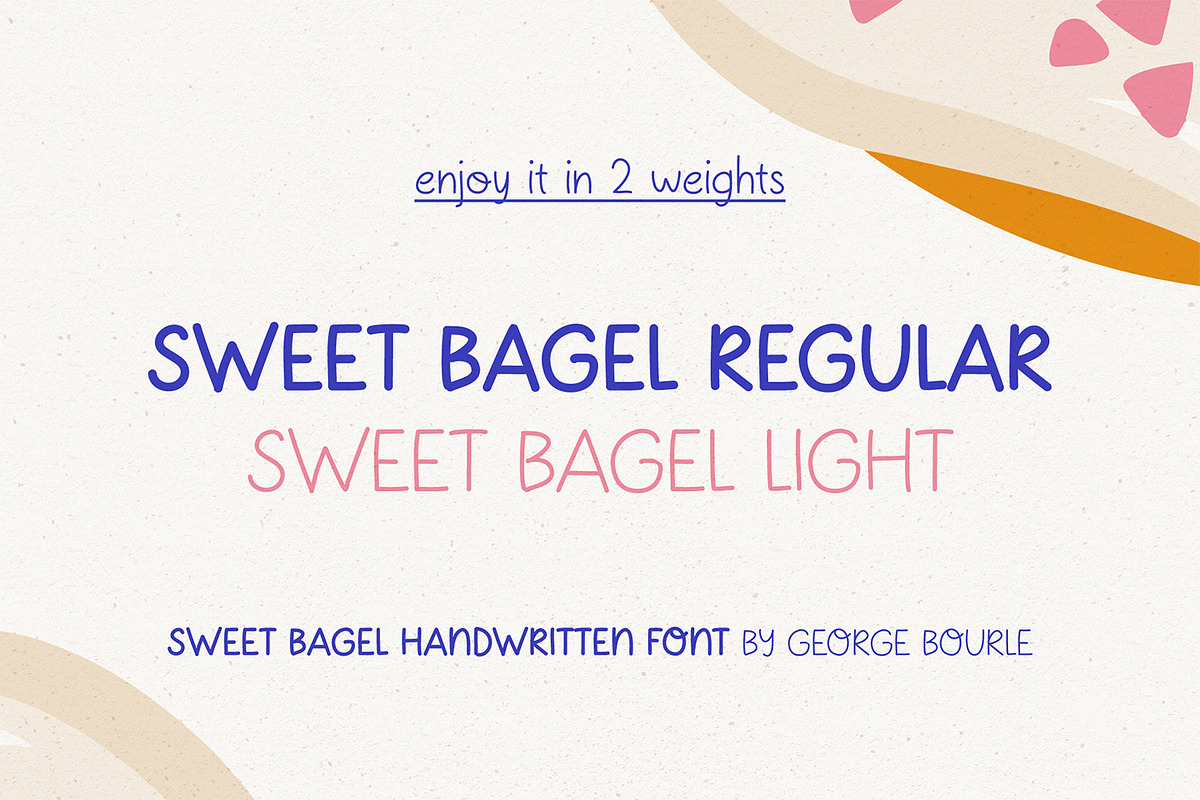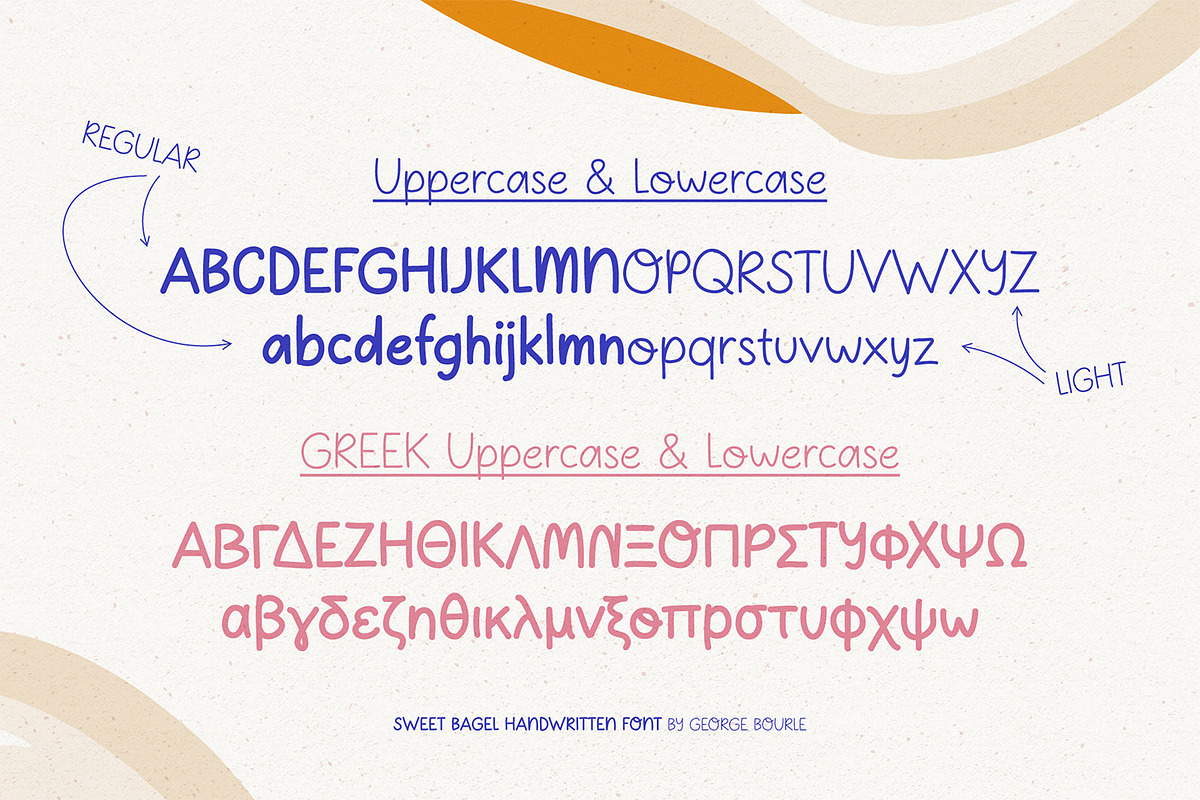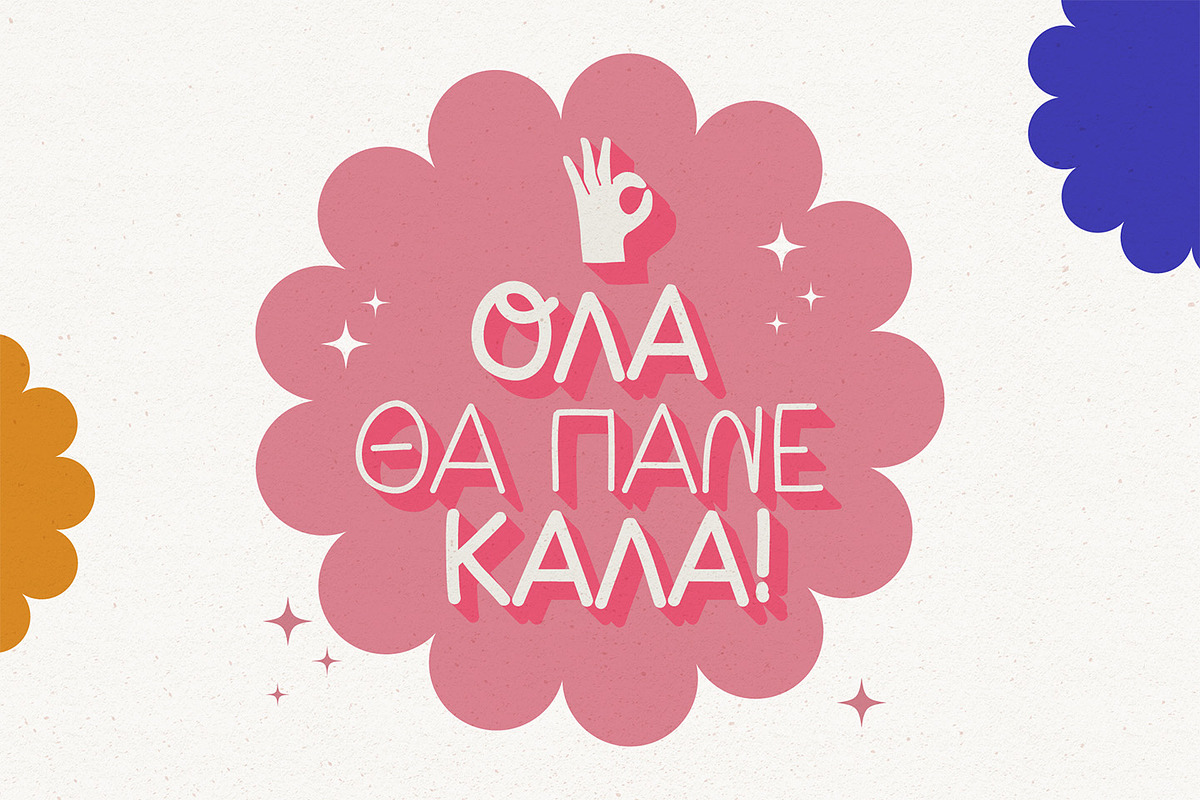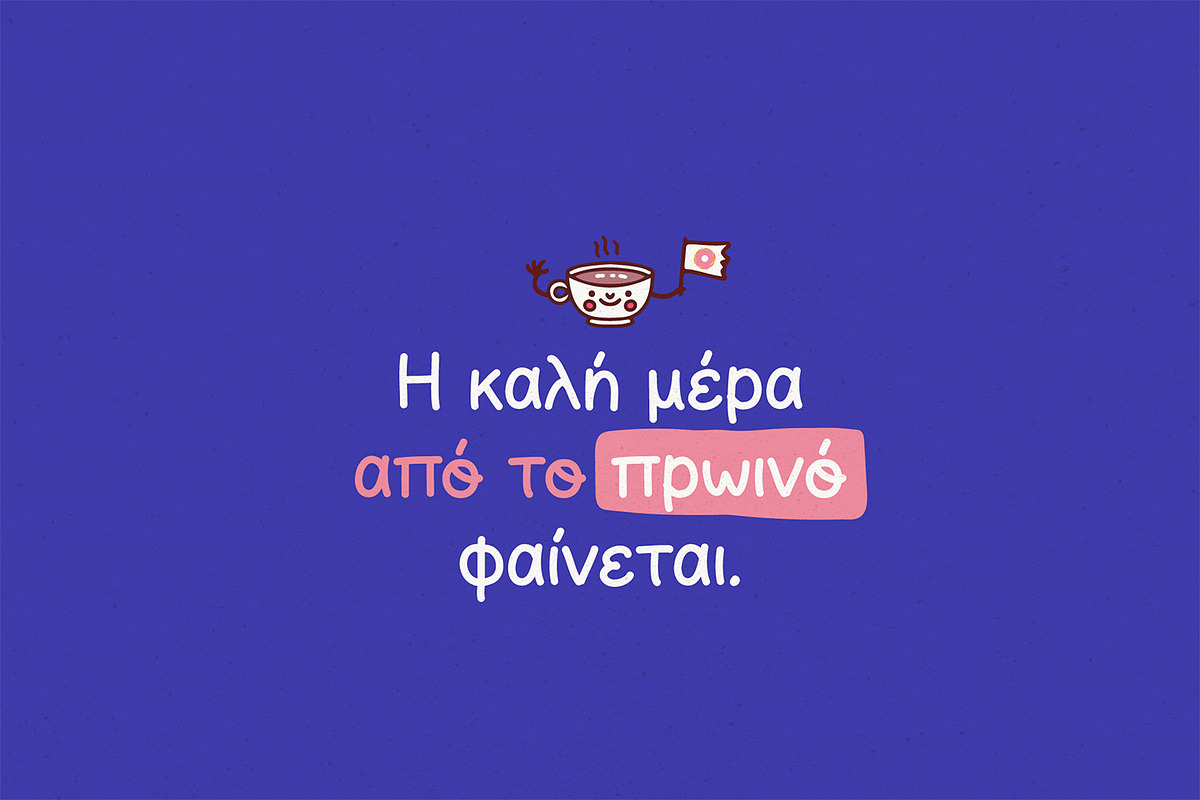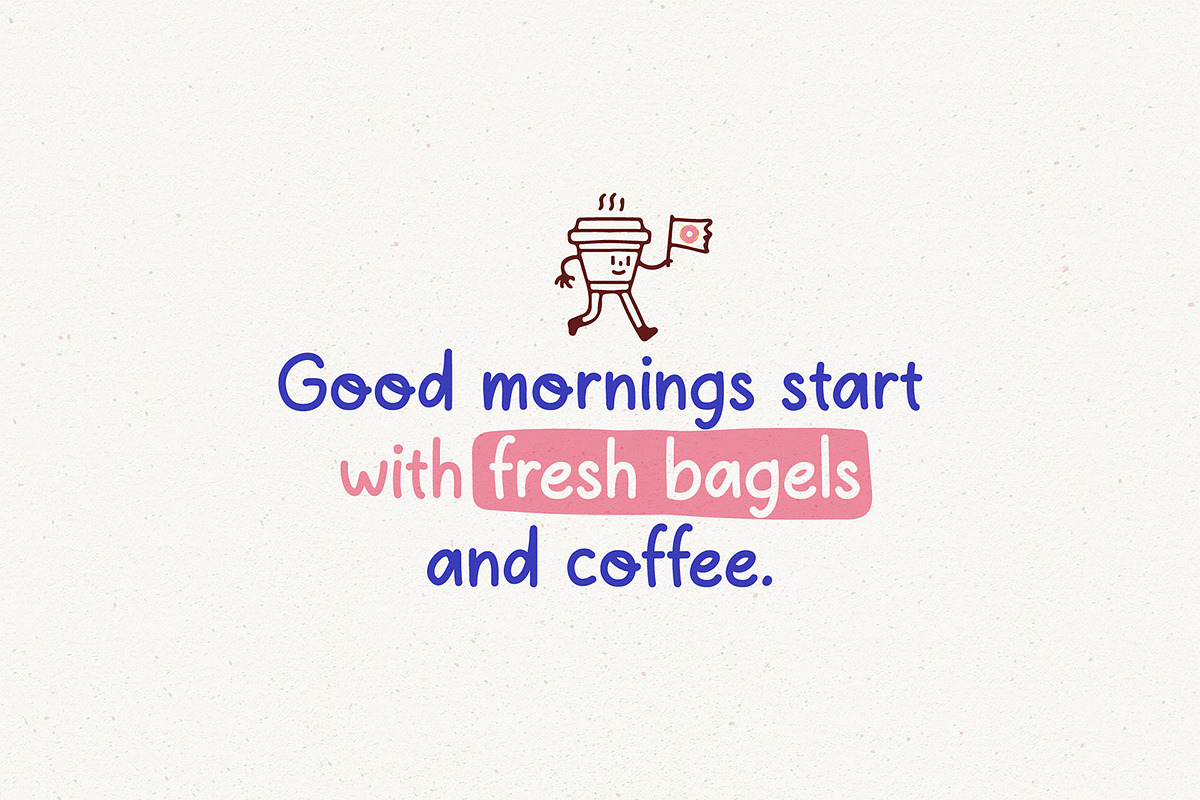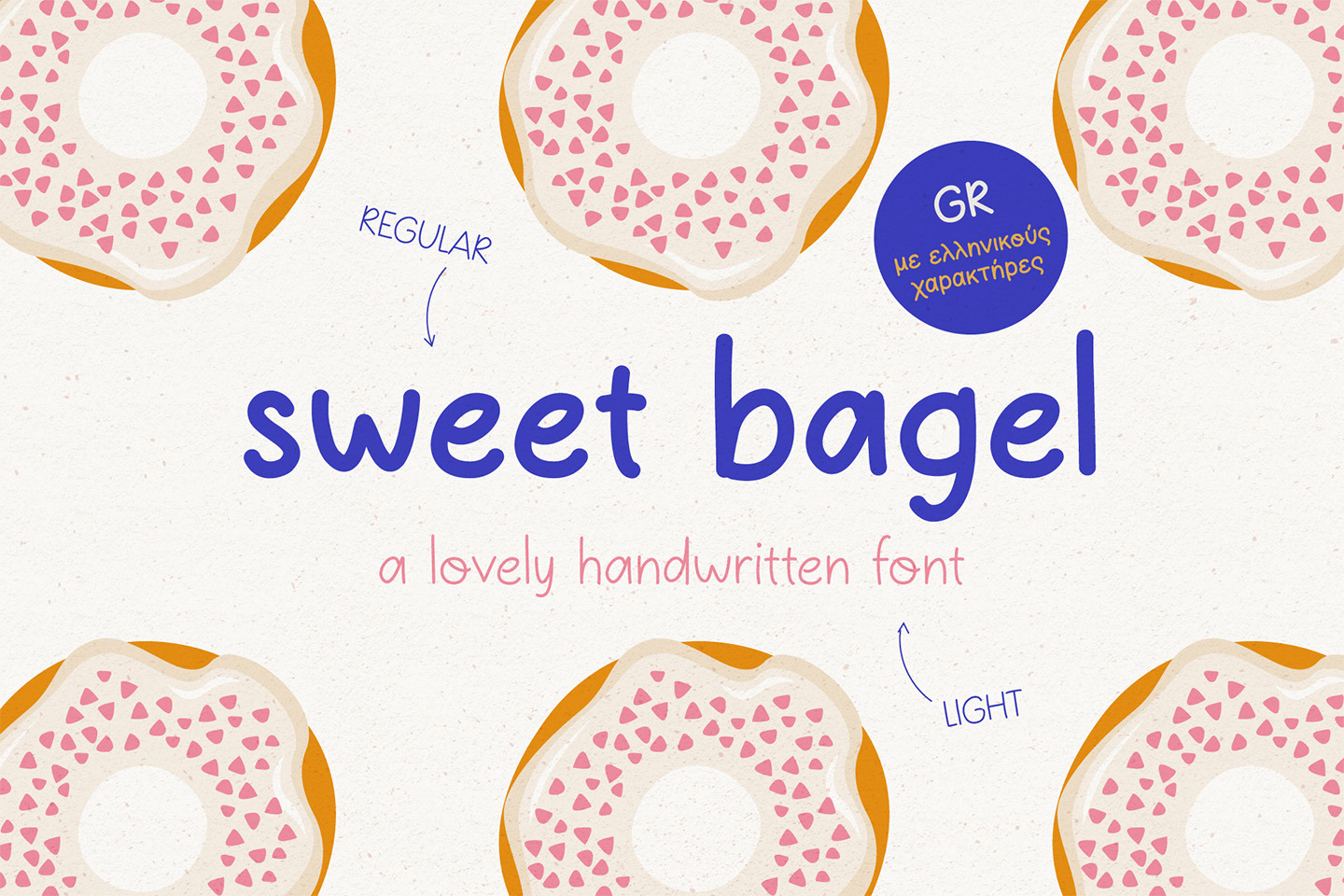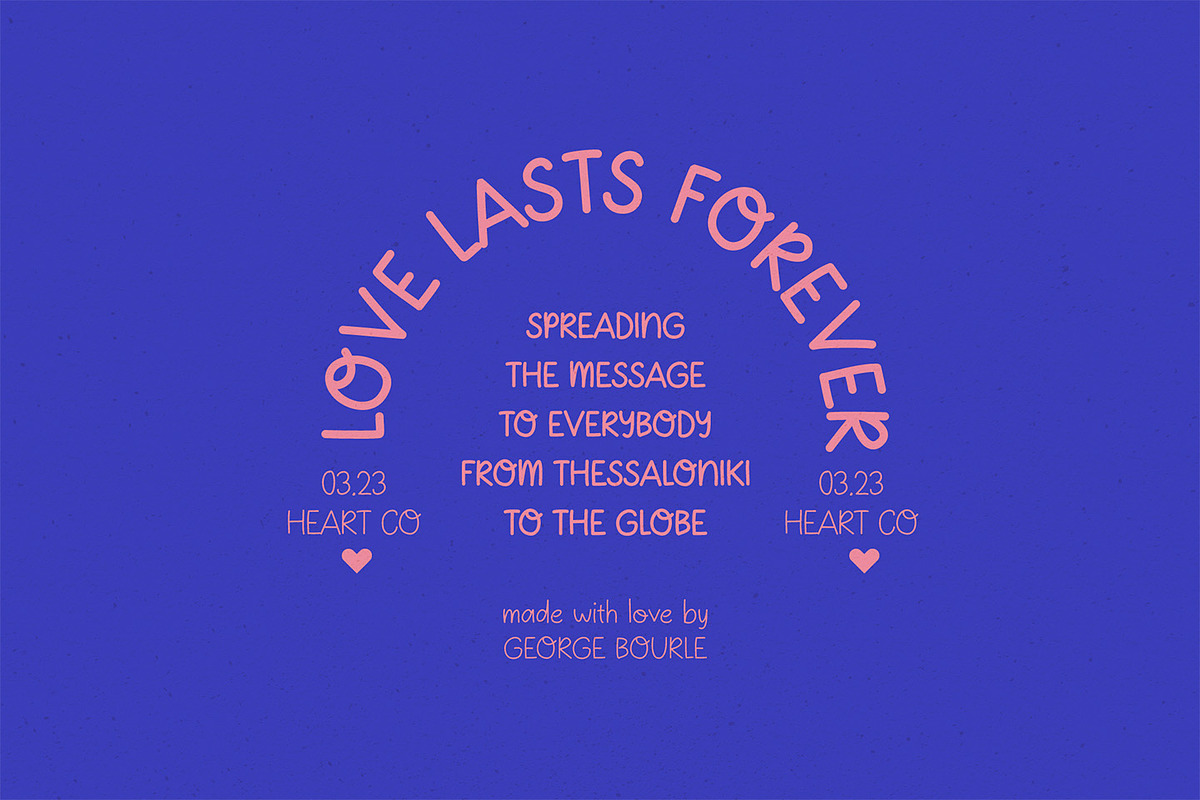
Sweet Bagel font
Sweet Bagel is a charming and whimsical handwritten font that captures the essence of homemade warmth and comfort. Its round and organic shape mimics that of a freshly baked bagel, making it a delightful addition to any project seeking a touch of playfulness.
The font features lovely strokes that flow naturally, giving off a friendly and welcoming vibe. Its multilingual support, including the Greek alphabet, makes it an excellent choice for projects with an international audience.
Whether used in a children's book, food packaging, or greeting cards, Sweet Bagel adds a touch of personal and intimate warmth to any text. Its handwritten style gives it an endearing and authentic look, making it the perfect font for conveying a sense of familiarity and personal connection.
Overall, Sweet Bagel is a charming and versatile font that brings a touch of warmth and playfulness to any project, making it a perfect choice for anyone seeking a personalised touch to their design.